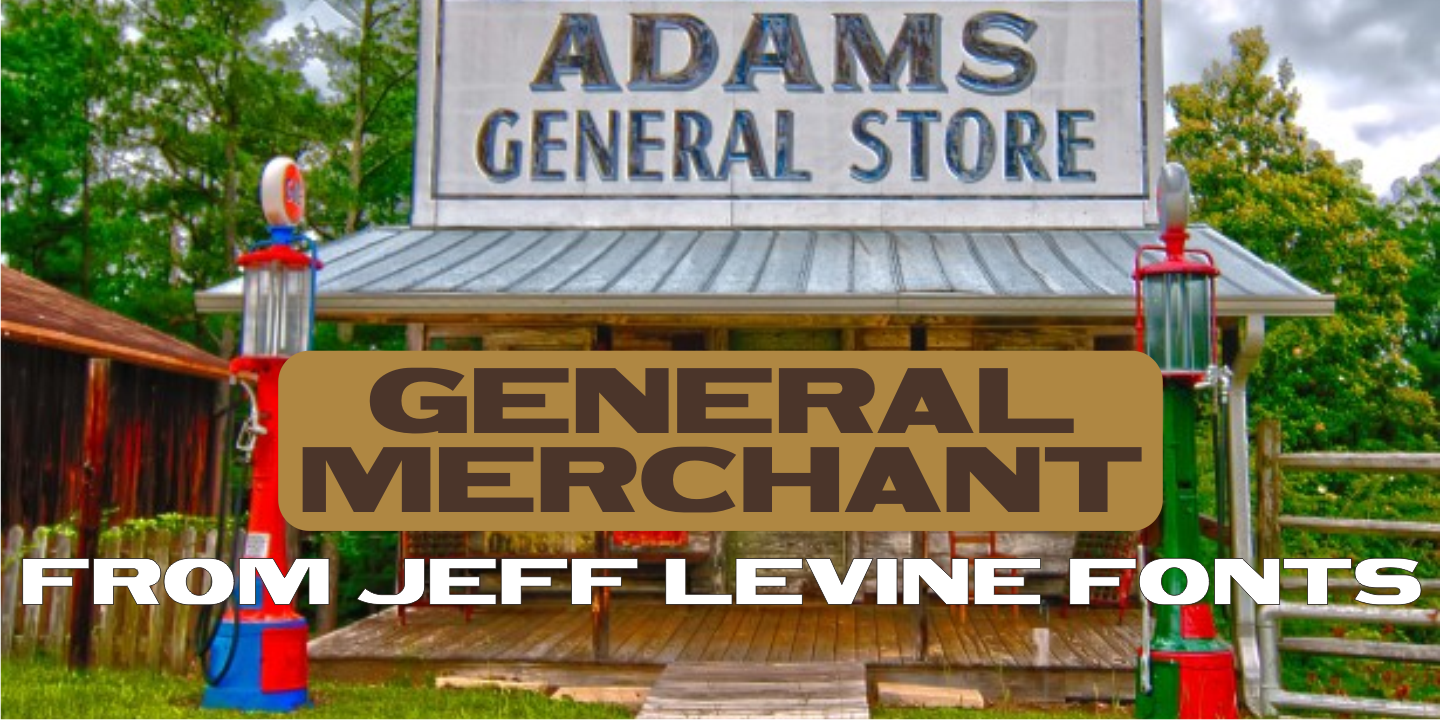
General Merchant JNL is a display sans font published by Jeff Levine Fonts.
General Merchant JNL is a bold, compressed sans design in the “Grotesk” fashion with varying character widths and flattened tops on the usually rounded characters.